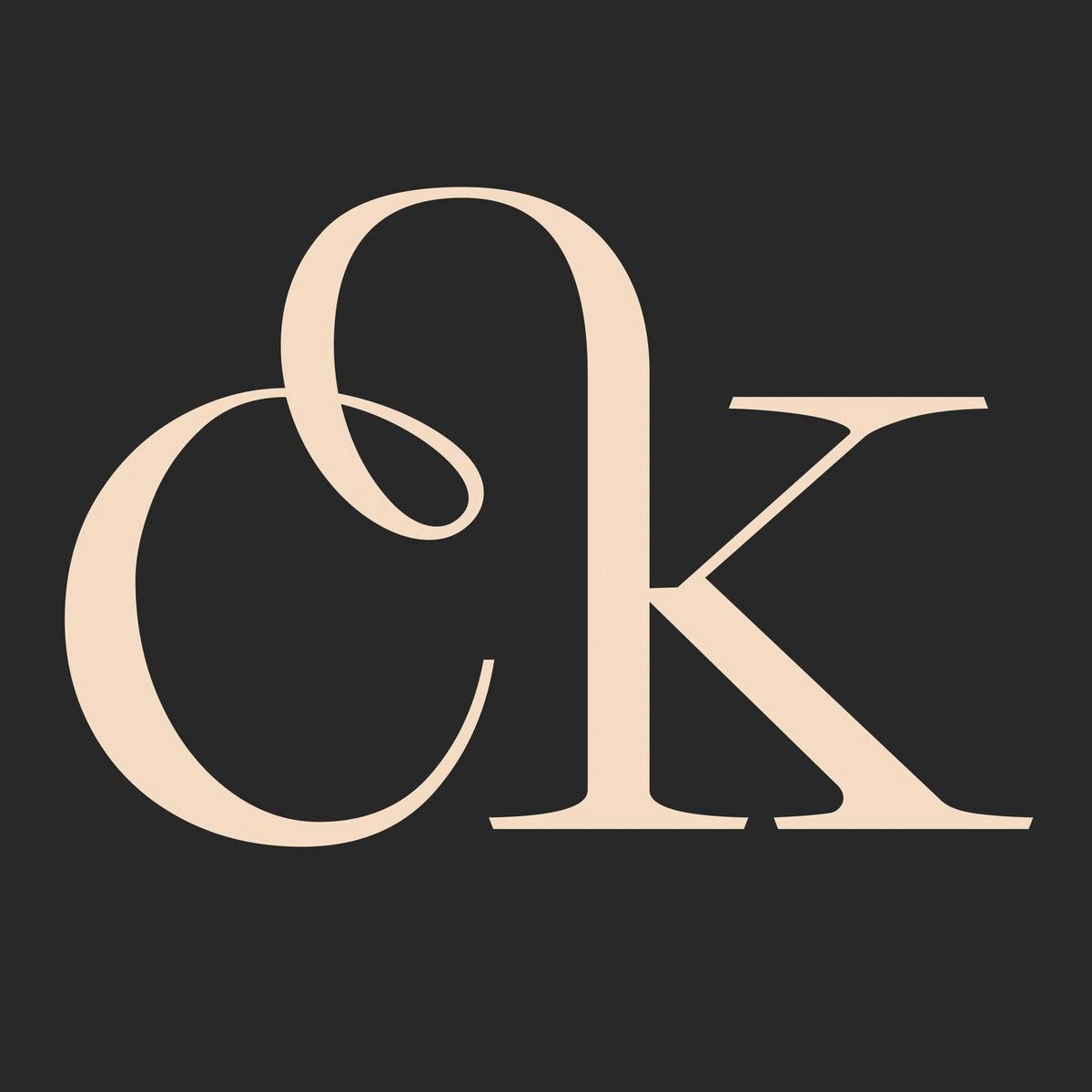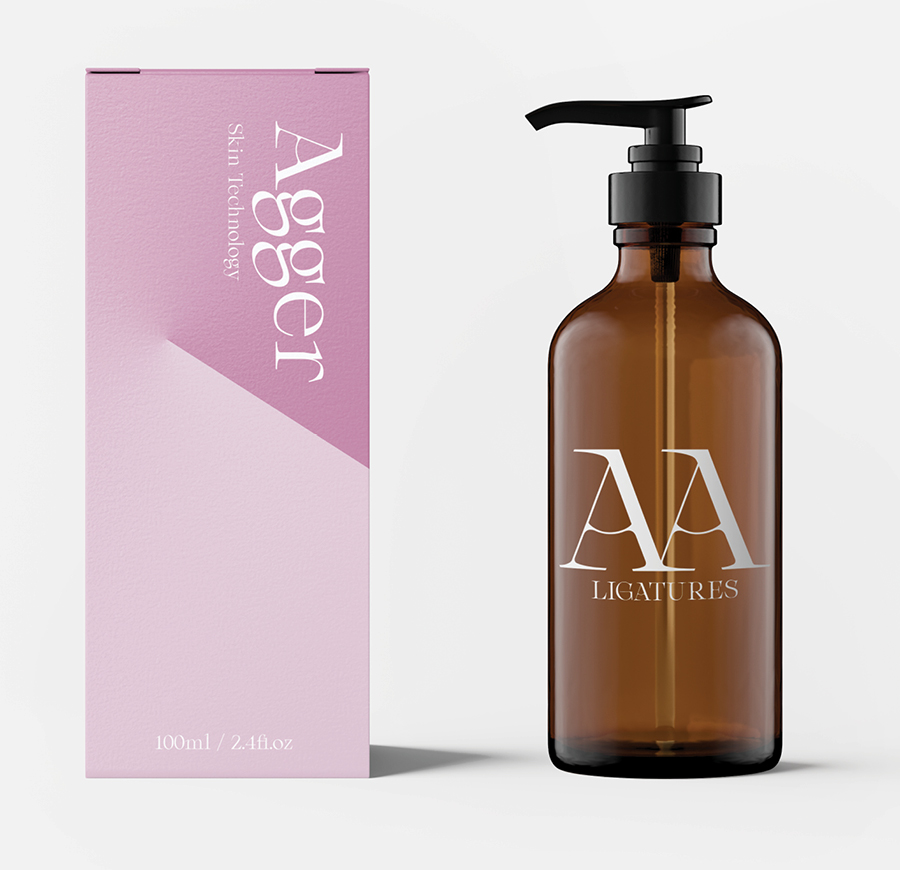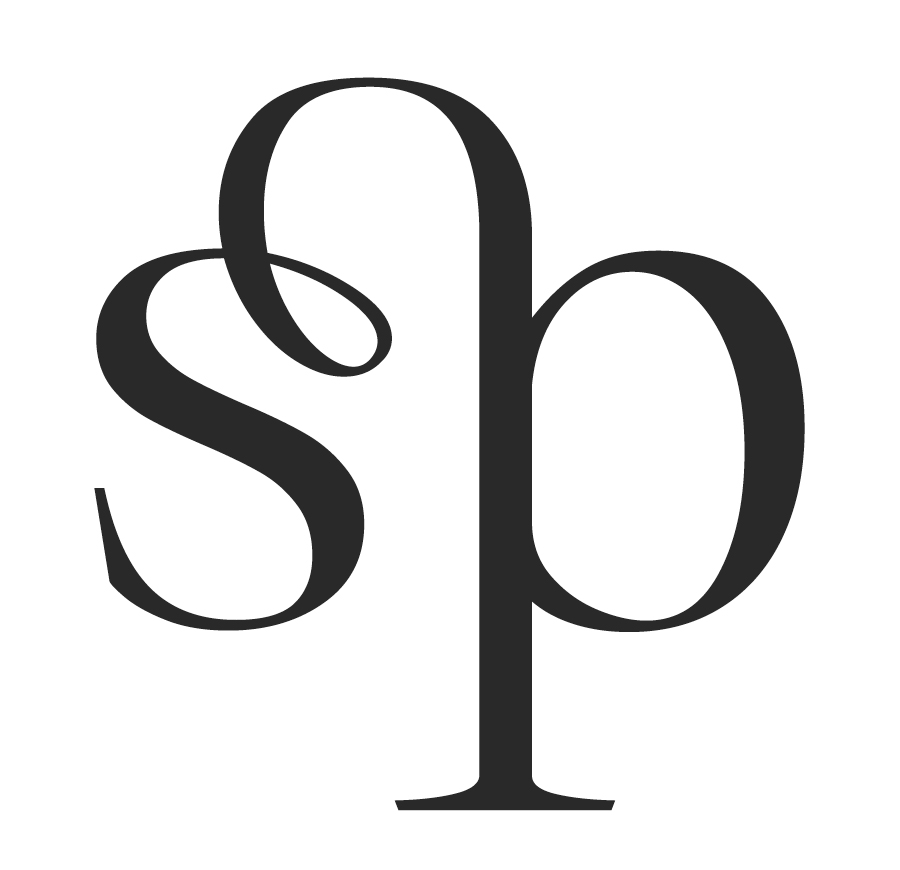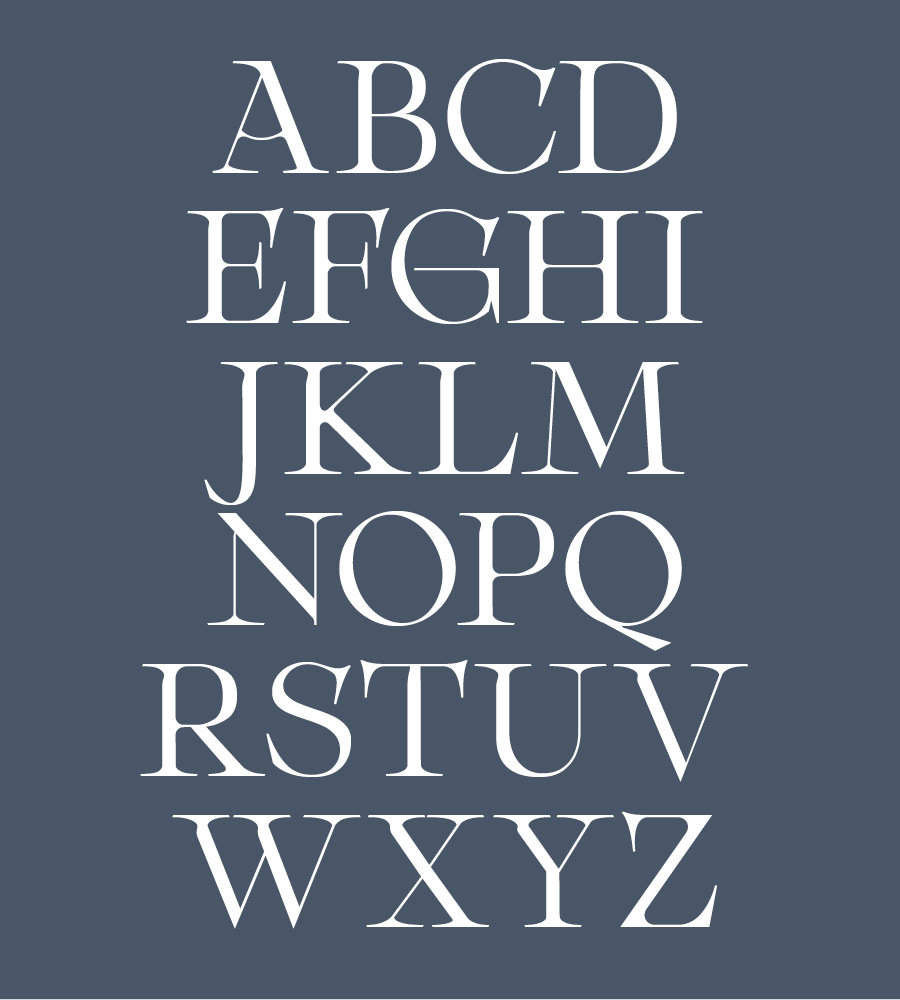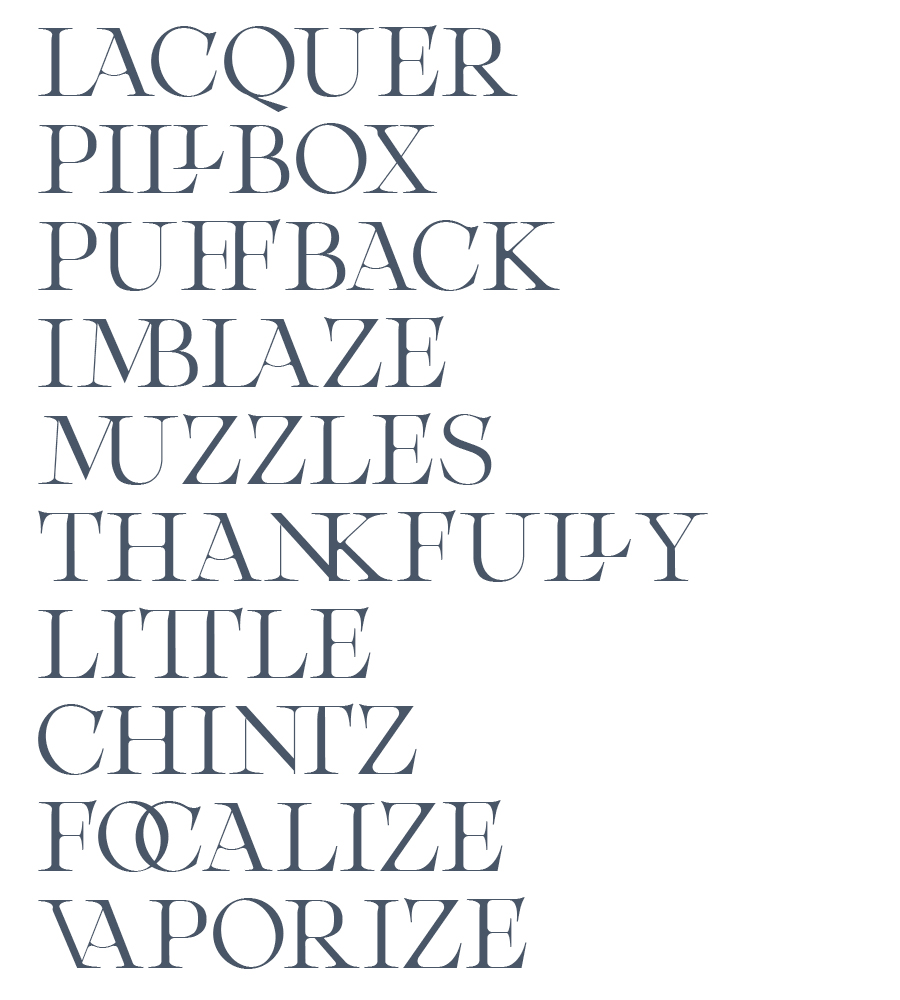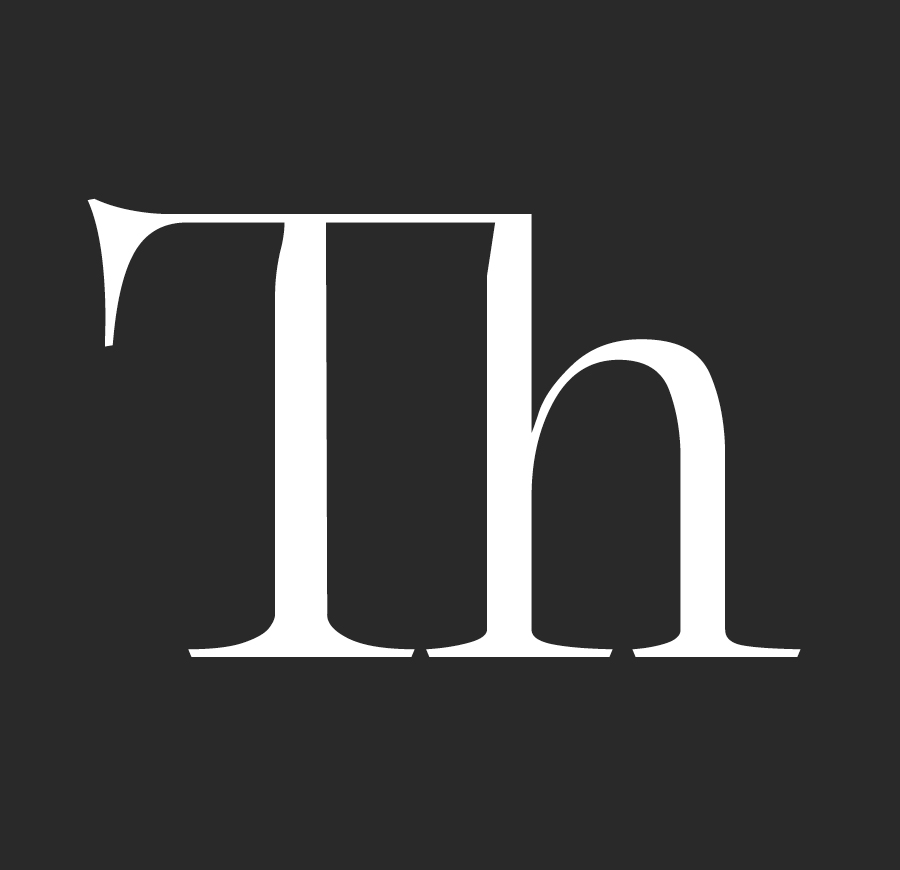
Agger is a contemporary serif typeface featuring large open counters and curved, round forms, creating a modern and elegant glyph set. The extreme contrast between thick and thin strokes gives Agger a harmonic and stylish look. Designed with elegance to the letterforms, the font is adapted for the beauty and the cosmetic industry, giving each project a unique style and feel.